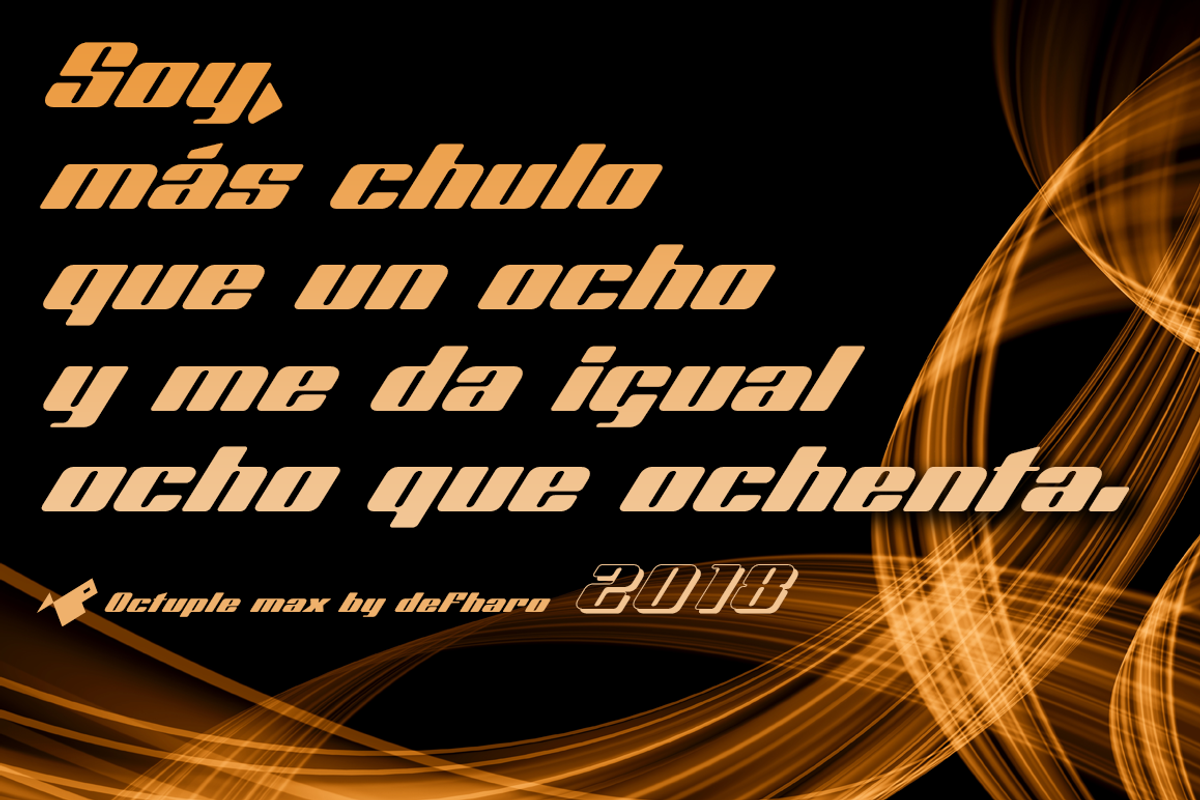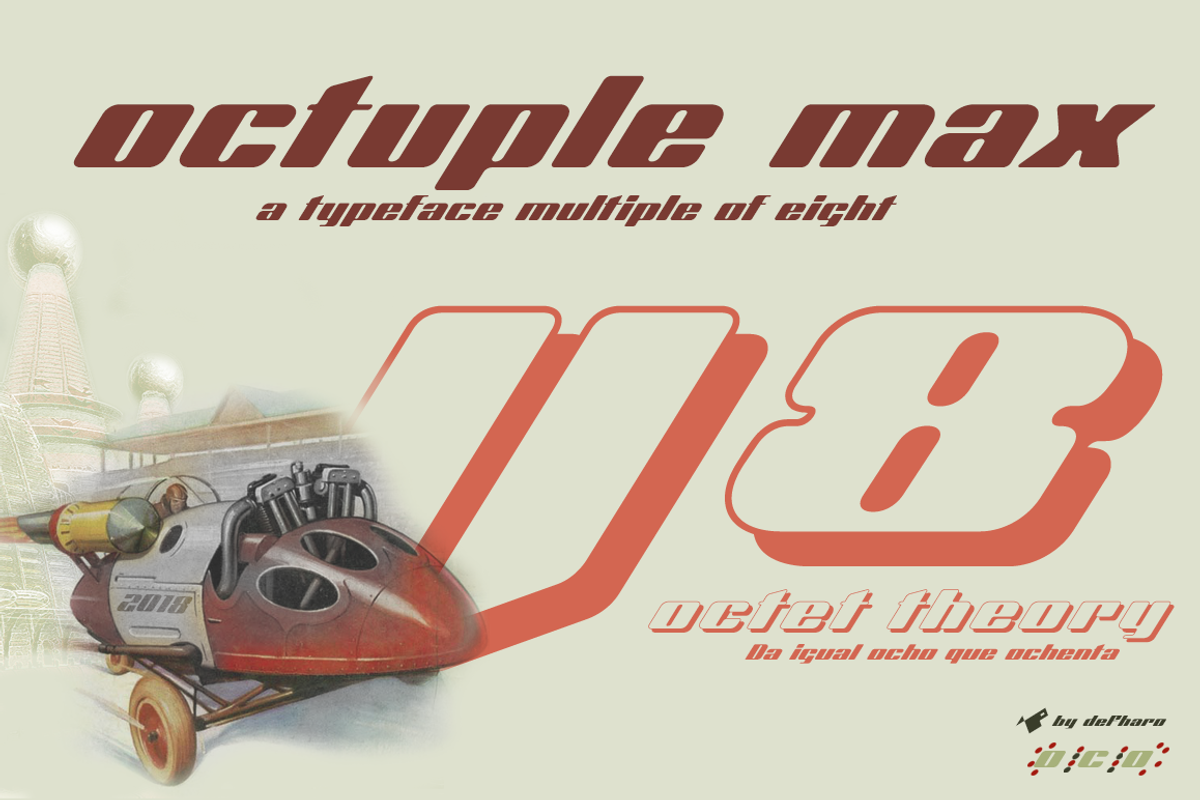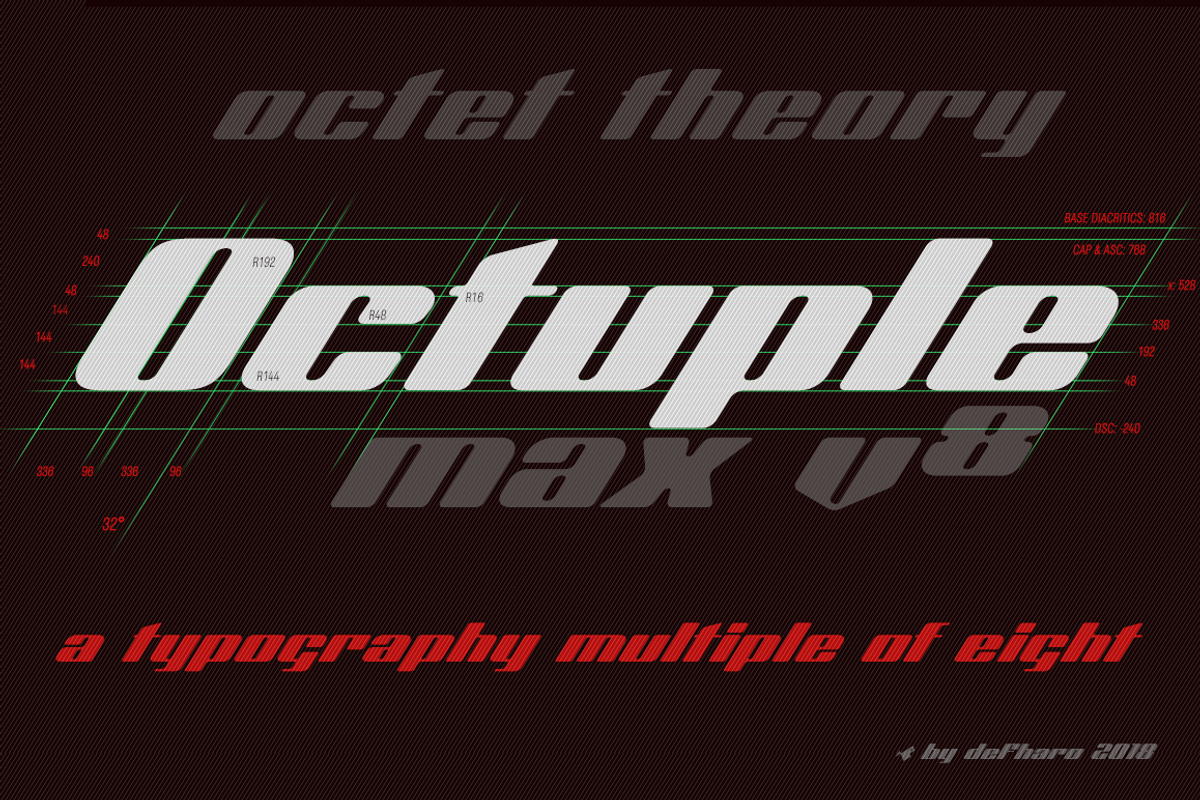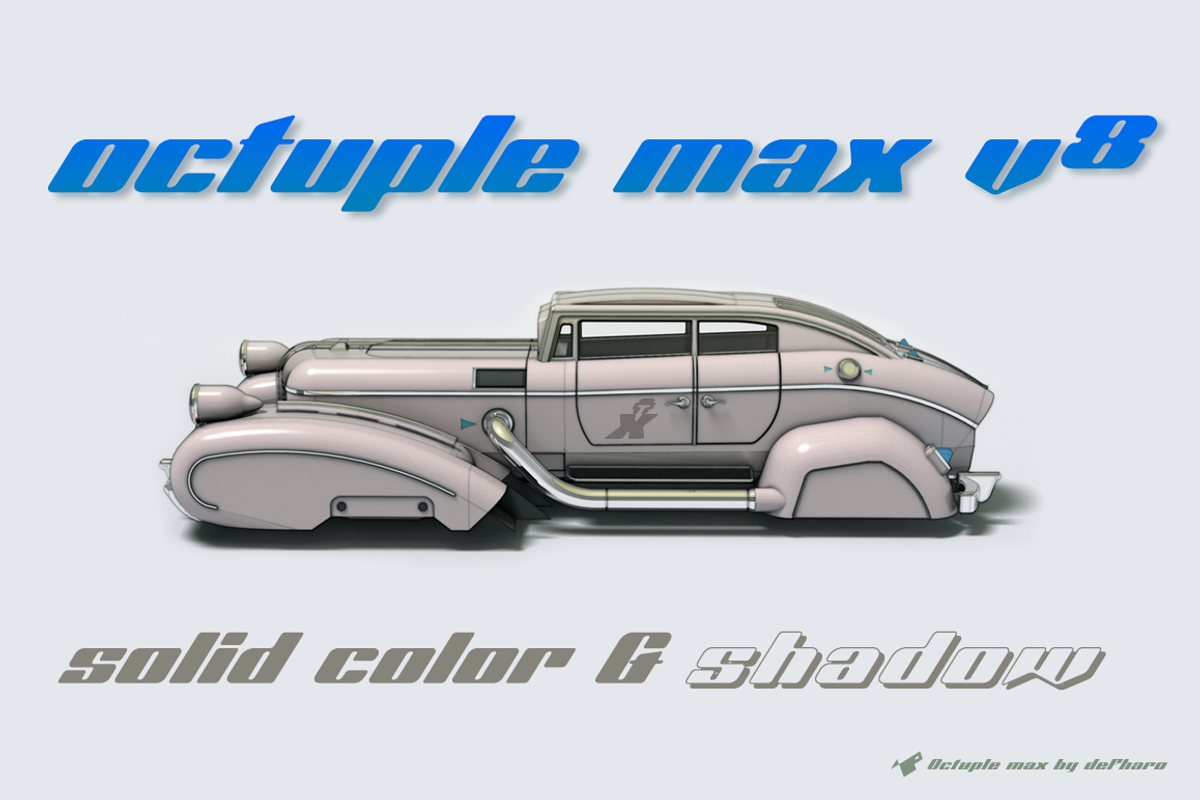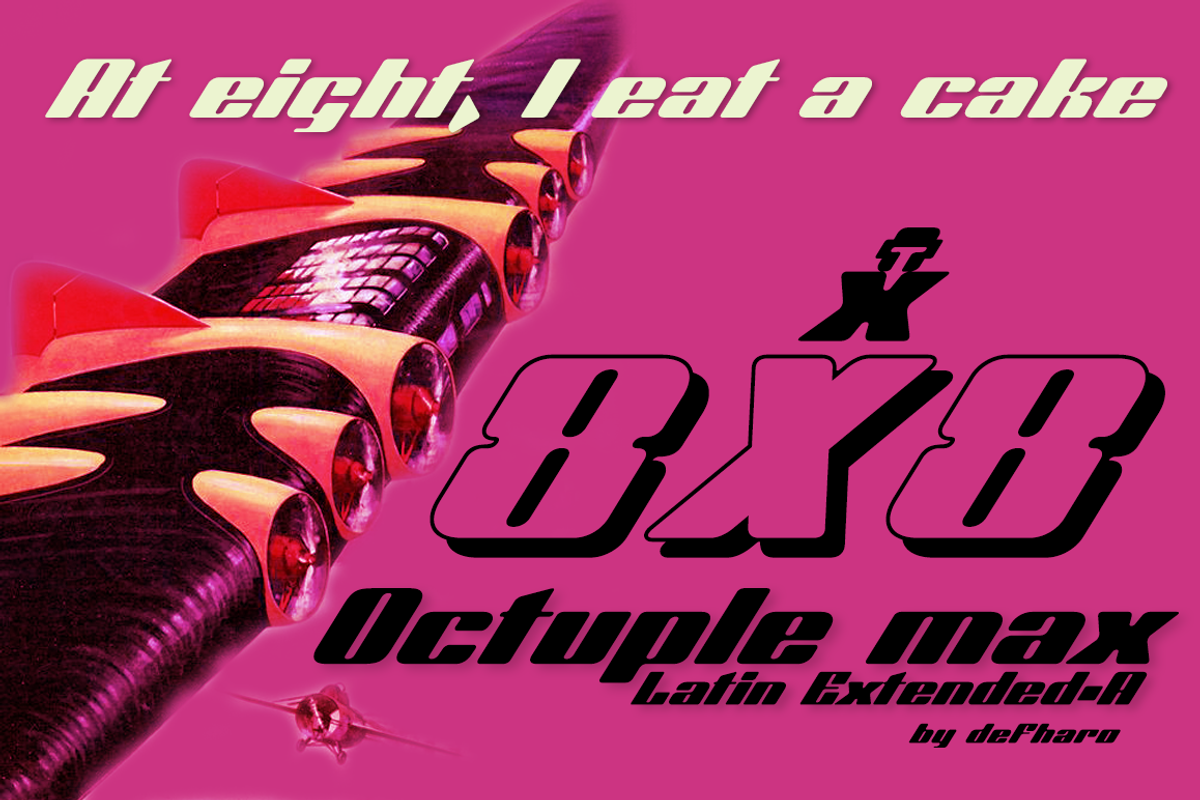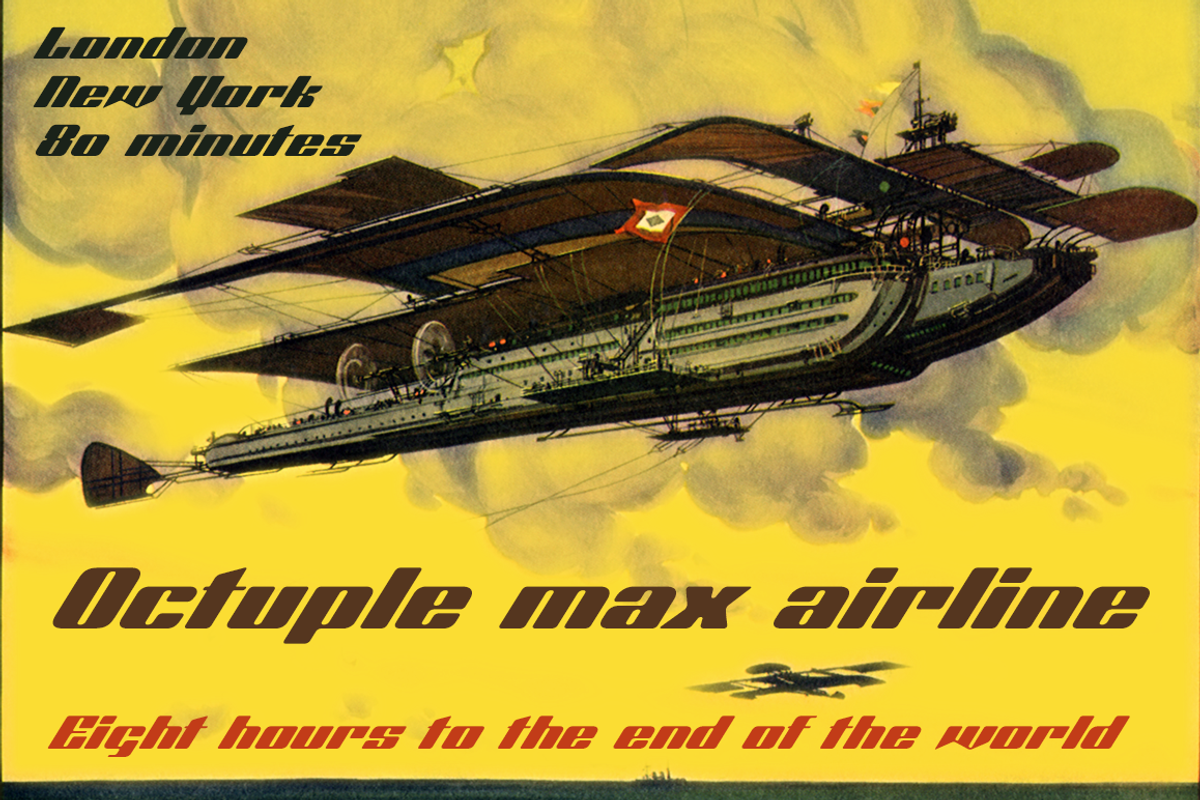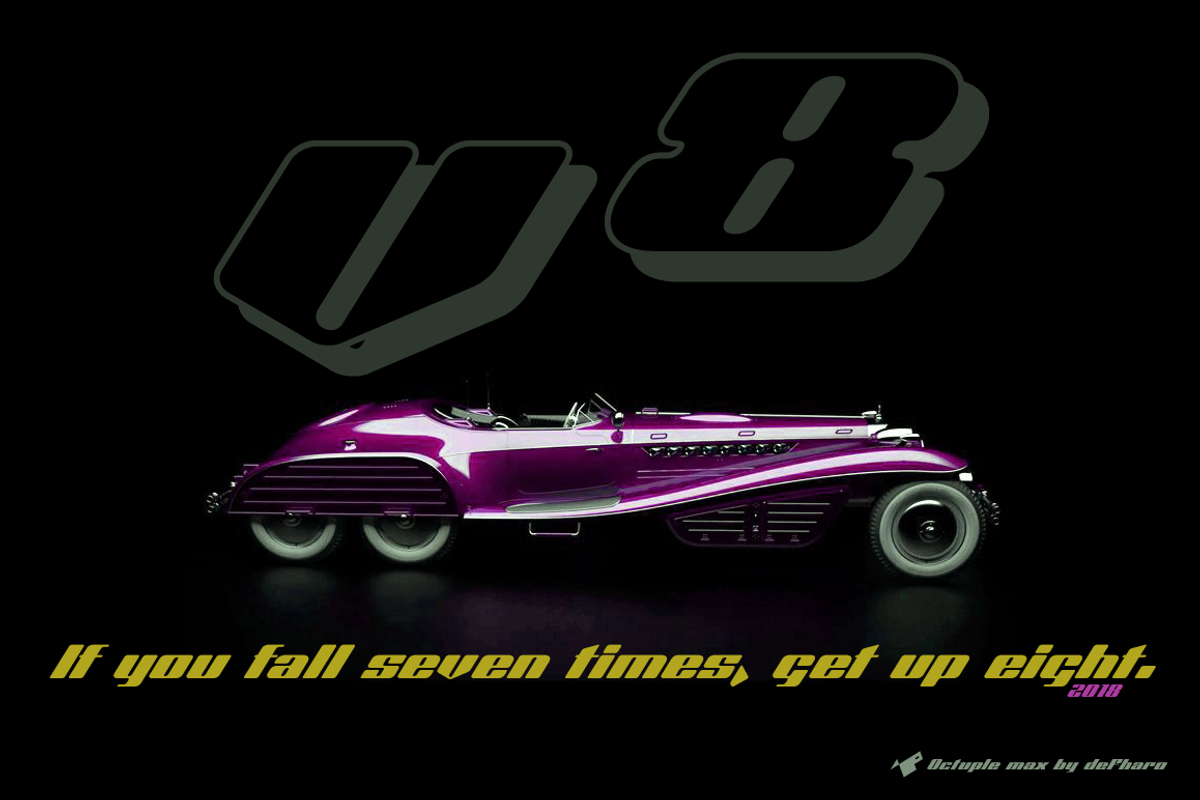
Octuple max -2 fonts-
Octuple max is a typographic experiment where all the proportions and measures of the characters and metrics are multiples of the number eight. The result is a very steep typography of square proportion with a great contrast between the horizontal/vertical horns and rounded in all corners. I started with an inclination of 32° for all the letters, then I built a grid with horizontal divisions of 48/units of height, so I defined the height of the x: 48×11=528/u, the height of the capitals and ascenders: 48×16=768/u, the descending ones: 48×4=192/u and the baseline of the diacritical accents: 48×17=816/u.
The width of the vertical hornsis 48×7=336/u, the horizontal horns have a height of 48/u, the small letters have a small optical correction in the measurements of the vertical horns.
The counterforms of the characters all have a width of: 48×2=96/u what is a width that is always a multiple of eight (336+96+ 336=768/u) Note that the general width of the characters with two vertical horns it is equal to the height of the capitals, this makes the final proportion of the typography square, with the great contribution of the inclination that breaks the rigidity and heaviness of a possible Roman version of this font made with the same concept of measures. This square aspect also influences the metrics, in general it is 48/u on each side of the letter that gives a measure equal to that of the counterforms (48×2=96/u) harmonizing a mono spaced alphabet for a fluid reading; there are exceptions in the metrics of some letters like t, j, f, x, z, and signs, in any case any measure of metrics is configured with multiples of Eight. This typeface does not need kerning.
I also use several measures multiples of eight for the radius of the angles in the corners, depending on the height or if they are more or less sharp, the most used is the radius of 48/u. Other radios that I used for the curves: 16, 24, 32, 96, 144, 192 and 240/u
In any case in the creation process I have enjoyed a lot because of my inclination towards geometrical drawing and mathematics, I hope that this type of neo-retro style likes and is used for any type of advertising design, posters, movies or wherever you look a typography with its own personality.
- Octuple max Solid & Shadow (2 fonts)
- Octuple max includes the symbol of Bitcoin and currency symbols.